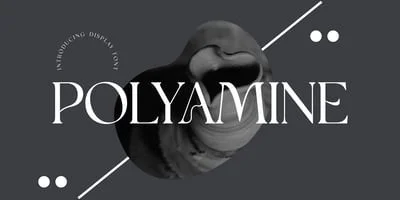
Polyamine Font
The Polyamine Font excels in various design applications including biochemical research branding, pharmaceutical company communications, molecular science publications, chemical laboratory identities, biotechnology marketing materials, scientific conference promotions, medical research institutions, protein analysis documentation, chemical synthesis presentations, and advanced scientific projects that demand molecular precision and biochemical sophistication.
What makes the Polyamine Font exciting is its sophisticated representation of molecular complexity and biochemical precision through letterforms that capture the intricate structures and systematic organization found in organic chemistry and molecular biology. This typeface embodies the essence of scientific advancement through carefully engineered characters that suggest molecular bonds, chemical structures, and the precise methodology required for biochemical research. The font's molecular personality makes it perfect for scientific institutions and biotechnology companies seeking to communicate cutting-edge research capabilities, analytical precision, and the revolutionary potential of molecular science through typography that reflects the complexity and elegance of biochemical systems.
The Polyamine Font family typically includes systematic weight variations that reflect different molecular complexities, featuring technical italic styles and extended character sets optimized for scientific notation and chemical nomenclature. These family options often include specialized symbols for biochemical use, molecular indicators, and scientific characters that enhance the font's utility for research communications and pharmaceutical documentation requiring absolute precision and professional credibility.
Biochemical researchers and pharmaceutical professionals consistently select Polyamine Font for projects requiring typography that communicates scientific authority and molecular expertise. This typeface delivers exceptional performance in research publications, biotechnology branding, and pharmaceutical communications where establishing scientific credibility and demonstrating advanced research capabilities is essential for professional recognition. The font's molecular character makes it particularly effective for protein research and biochemical analysis applications. Download Polyamine Font today to access this advanced typeface that transforms scientific communications with its molecular precision and biochemical sophistication, creating compelling research experiences that demonstrate the highest standards of scientific excellence while maintaining optimal clarity for complex molecular documentation and pharmaceutical applications.